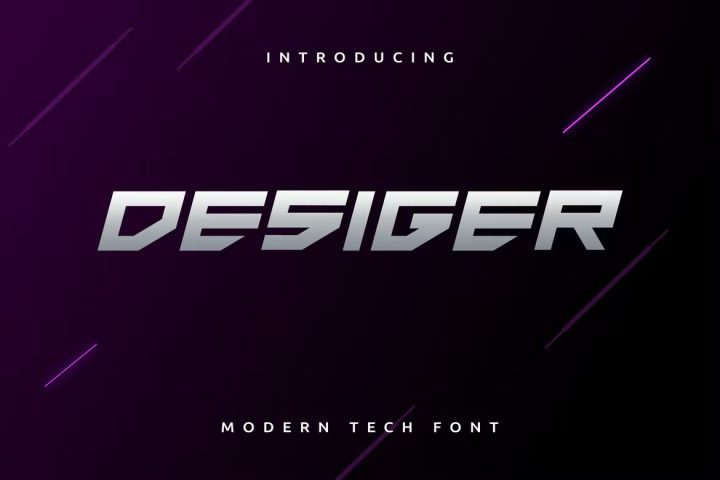
Desiger Font
Introducing our new product Desiger Font – Modern Font
Desiger Font – Modern Font is a bold and authentic display font. The font is suitable for any branding project like logo, t-shirt printing, esport, and many more. outstanding in a wide range of contexts.